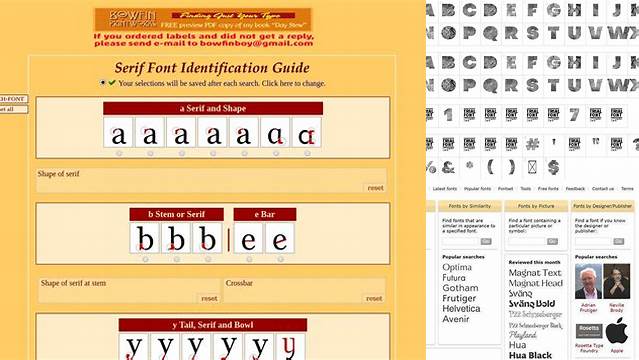
What The Font: Free Font Download Guide
Hey guys, are you tired of endlessly scrolling through fonts, trying to find the perfect match for your design projects? Ever seen a font online and thought, "Wow, I need that!" but had no idea what it was called? Well, you're in luck! We're diving deep into the world of font identification, specifically focusing on a super handy tool called "WhatTheFont" and how you can snag a free download. This guide is designed to be your go-to resource, helping you not only identify those elusive fonts but also understand the best ways to use them in your work. Let's get started and unlock the secrets to the perfect typography, shall we?
Unveiling WhatTheFont: Your Font Detective
So, what exactly is WhatTheFont? Simply put, it's a free online font identifier developed by MyFonts. It's like a super-powered magnifying glass for fonts. You just upload an image containing the font you're curious about, and WhatTheFont does its magic. Using advanced image recognition technology, it analyzes the font in the image and suggests potential matches from its massive database of fonts. It's an incredibly useful tool for designers, marketers, and anyone who loves typography. Gone are the days of manually searching through font catalogs, hoping to stumble upon the right one. Now, with WhatTheFont, you can quickly and easily identify fonts and then go on to download them or find similar alternatives. But hey, how exactly does this font identifier work? Well, let's break it down.
First, you'll need an image. This could be a screenshot of a website, a picture of a logo, or any image that has the font you want to identify. Make sure the image is clear and that the font is easily readable. You don't want a blurry image that will make it difficult for the algorithm to recognize the font. Next, you'll head over to the WhatTheFont website. There, you'll find a simple and user-friendly interface that guides you through the process. Upload your image, and the tool will analyze it, highlighting individual characters and asking you to confirm the characters it has identified. This is where you can help refine the results; correct any misidentified characters, and provide accurate input to get the best possible match. Then, in a matter of seconds, WhatTheFont will present you with a list of potential font matches, along with their names, and often links to where you can purchase or download the font. Pretty neat, right? Remember, the accuracy of the results depends on the clarity of the image and the distinctiveness of the font. The more visible and unique the font is, the better the chances of WhatTheFont correctly identifying it. So, make sure your image is high-quality to get the best results. This font identifier is really an invaluable tool for any designer looking to identify the perfect font.
Advantages of Using WhatTheFont
WhatTheFont offers a ton of advantages, making it a must-have tool for anyone working with fonts. Firstly, it's incredibly time-saving. Instead of spending hours scrolling through font websites and trying to match a font by eye, you can upload an image and get potential matches in seconds. This is a huge productivity boost, allowing you to focus on other important tasks in your design projects. Secondly, it's incredibly easy to use. The interface is intuitive and user-friendly, even for beginners. You don't need to be a typography expert to use WhatTheFont, which is a huge plus! The straightforward process of uploading an image, correcting character identifications, and viewing results makes it accessible to everyone. Third, it provides a wide range of font options. WhatTheFont's database is extensive, and includes a huge number of fonts, increasing the chances of finding a match, even for more obscure or unique fonts. This can be a great way of discovering new fonts. Finally, it helps spark creativity. Seeing the suggested font matches can inspire new design ideas and encourage you to experiment with different styles and variations. So, WhatTheFont isn't just about identifying fonts; it's about unlocking new creative possibilities. Keep in mind that while WhatTheFont is amazing, it's not perfect. It might not always identify a font correctly, especially if the image is low-quality or the font is heavily stylized or modified. Also, the tool can sometimes suggest similar, but not identical, fonts. Therefore, it's always important to double-check the results and evaluate if the suggested fonts meet your needs. But trust me, with its speed, ease of use, and extensive font database, WhatTheFont is an invaluable tool for font identification.
Tips for Choosing the Right Free Font
Choosing the right font is a critical aspect of design. The font can make or break the look of your design, so take your time and make informed decisions. Here are some important tips to keep in mind when selecting a free font.
First, consider the project. Think about the purpose of your design and the message you want to convey. Is it a formal document, a playful website, or a brand logo? The font you choose should reflect the tone and purpose of your project. For instance, a sleek sans-serif font might be suitable for a modern website, while an elegant serif font could be perfect for a wedding invitation. Next, focus on readability. Make sure the font you choose is easy to read, especially for body text. Avoid overly decorative or complex fonts, as they can be difficult to read at small sizes. A readable font enhances the user experience and ensures your message is clearly understood. Think about using different font pairings. Experiment with combining different fonts to create a visually appealing design. Consider pairing a bold headline font with a more subtle body text font. This will create visual hierarchy and make your design more interesting. Furthermore, always check the character set. Make sure the font you choose includes the characters you need, such as numbers, punctuation marks, and special characters. If you're designing in a language other than English, make sure the font supports the necessary characters. A limited character set can be a frustrating limitation. Finally, test the font. Before using the font in your final design, test it out by using it in a draft layout. See how it looks in different sizes, weights, and colors. Get feedback from others to see if the font is effective. This will ensure that the font works well in your specific design context.
Legal Considerations for Font Downloads
Now that you're excited about downloading fonts, it's super important to understand the legal aspects of using them. Using fonts without the proper licenses can lead to serious legal consequences, so you need to be informed. Let's break down the key legal considerations for font downloads. First off, understand font licenses. Fonts are generally protected by copyright, meaning that designers or foundries own the rights to them. When you download a font, you're not buying the font itself, but rather a license that gives you the right to use it under specific terms and conditions. These terms are outlined in the font license, and it's super important to read and understand them before you use the font. There are several types of font licenses, including personal use, commercial use, and open-source licenses. Personal use licenses typically allow you to use the font for non-commercial projects, such as personal projects, without having to pay a fee. Commercial use licenses, on the other hand, allow you to use the font for commercial purposes, such as creating logos, websites, or marketing materials for businesses. These licenses often come with a fee. And of course, open-source licenses allow you to use, modify, and distribute the font freely, often without any restrictions. Next up is always read the license agreement. Every font download comes with a license agreement that outlines the terms of use. Don't skip this step! The agreement specifies the permitted uses, restrictions, and limitations. Carefully read the license agreement before using the font, making sure you understand and agree to all the terms. For example, the license might restrict the use of the font in certain contexts, such as in trademarks or logos, or it might limit the number of users or devices that can use the font. Respect the designer's rights. It's super important to respect the designer's rights and adhere to the license agreement. Using a font outside the terms of its license is a copyright infringement and can lead to legal action. If you're unsure about the terms of use, contact the font designer or foundry for clarification. Using free fonts doesn't mean you can do anything you want with them. They are often free for personal or commercial use and you are required to read the license to understand. Finally, keep records of your licenses. Keep a record of all the font licenses you've obtained, along with the corresponding fonts. This will help you ensure you're using the fonts legally and can provide proof of license if needed. Organizing your font licenses will help you stay compliant with copyright laws and avoid potential legal issues. Following these legal considerations will ensure you use fonts ethically and legally. So, do your research, respect the licenses, and enjoy using your fonts!